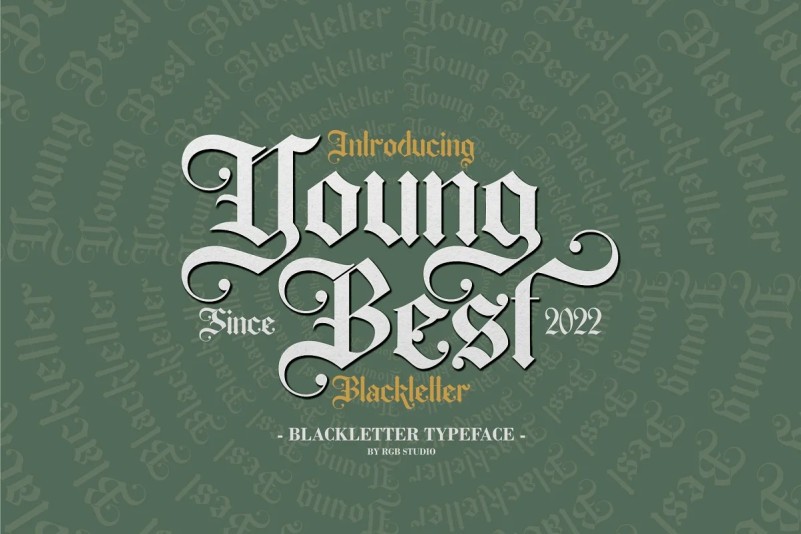
Young Best Blackletter Font is a bold, distinct and elegant blackletter typeface crafted & designed by RGB Studio. Supported by alternative options such as swash and alternative characters, making Young Best font very easy to create designs with strong or dark themes. In addition, Young Best font is also supported with multilingual characters that can be used in several international languages.